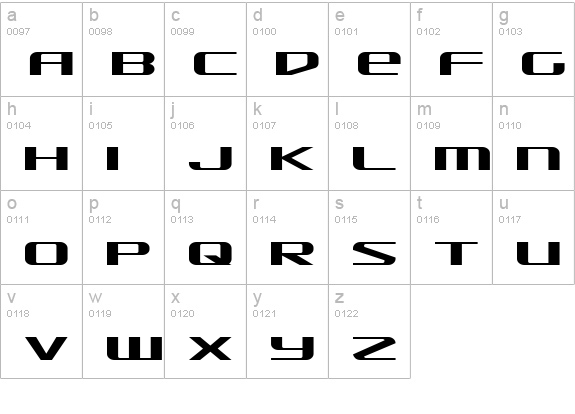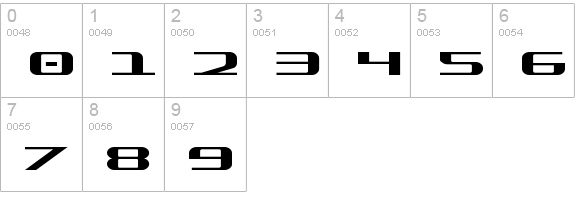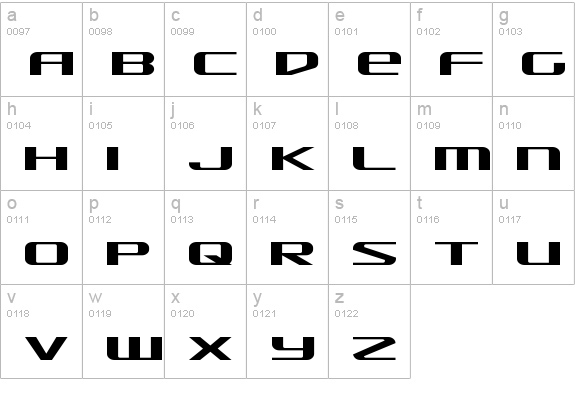
SDF Expanded is a distinctive, extended-width variant in the SDF typeface family \xE2\x80\x94 well suited to design and typography projects.
SDF Expanded font is a versatile and modern typeface that exudes sophistication and elegance. With its bold and sleek letterforms, this font is perfect for making a statement in headlines, logos, and branding materials. The expanded spacing adds a touch of uniqueness and flair to any design project. Best of all, SDF Expanded font is completely free to download at FontsMarket.com. Whether you're a designer looking to add a fresh look to your projects or a business owner wanting to elevate your brand identity, this font is a must-have in your toolkit. Don't miss out on the opportunity to enhance your designs with this stylish and eye-catching typeface. Download SDF Expanded font today and take your creations to the next level!